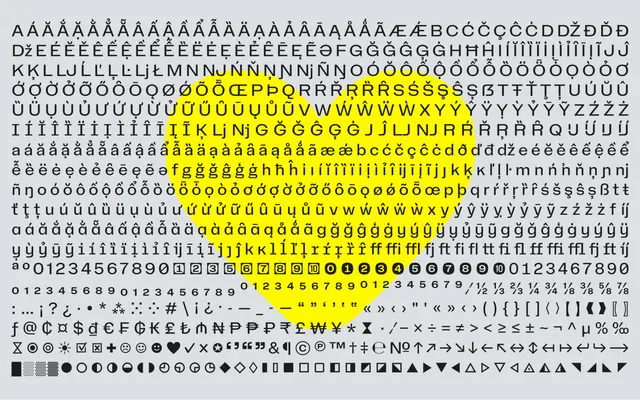
NaN Holo
NaN · Luke Prowse · 2021
NaN Holo specimen from NaN
A neo-grotesque with a science-fiction premise, mixing rectangular counters and rounded curves across five width variants and a monospaced companion.
Designed by Luke Prowse with additional work from Jean-Baptiste Morizot and Fátima Lázaro, Holo pairs an industrial skeleton with deliberately inconsistent rounded and squared details that create warmth at display sizes and recede at text sizes. Wider-than-usual capitals give the rhythm a confident openness without tipping into novelty. The monospaced variant, Holo Mono, extends the family into code and technical contexts while maintaining the same underlying tension between machine logic and biological form.
Described explicitly as a neo-Grotesk, combining rectangular counters with rounded curves on an industrial frame; the biological disruptions and proportional idiosyncrasies sit within the grotesque tradition rather than outside it.